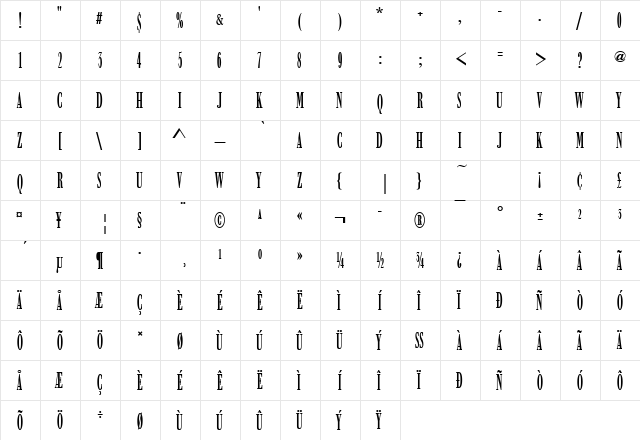
WalbaumBucComDMed Regular
Design Context for WalbaumBucComDMed Typeface
WalbaumBucComDMed offers clean, dependable letterforms without strong stylistic allegiance, making it a practical choice for designers who need flexibility.